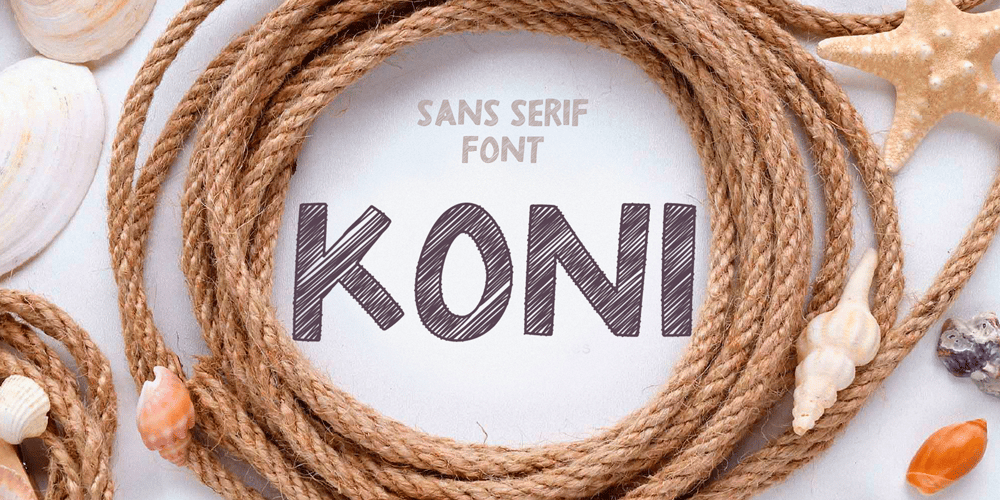
Koni Font Family was designed by Anastasia Kuznetsova and published by Anastasia Kuznetsova. Koni contains 1 styles and family package options. Get to know the beautiful natural and neat font “Koni”! This beautiful neat retro sans-serif font with imperfect ink edges and a little sloppy shading is inspired by nature. This is a textured font in vintage style with capital letters. The letters here are clearly distinguishable, and interesting touches give it uniqueness. Eco-friendly fashion takes into account the health of consumers, the health of the planet. The font “Koni” is perfectly combined with any stylized graphics, watercolors, and also looks great on its own as part of a minimalist design. Play with letters to get different effects.Great for branding, invitation design, packaging design, quotes, label design and more.Font features:- A-Z; character set a-z;- 1 language (English);- numbers and punctuation marks, symbols.Fonts can be opened and used in any software that can read standard fonts, even in MS Word. No special software is required, and to get started.It is recommended to use it in Adobe Illustrator or Adobe PhotoshopMade with love and magic ♡Thank you for checking this out and feel free to write me a message if you have any questions!~ Anastasia